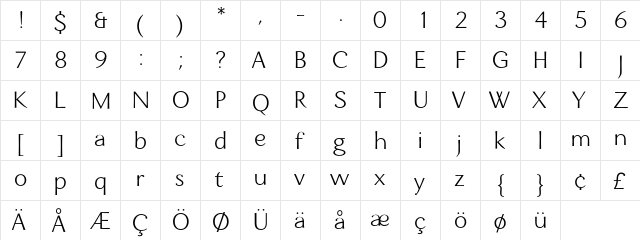
Eniza Light
| Foundry | by Jeremy Dooley |
Design Context for Eniza Typeface
Eniza is a composed and adaptable typeface that performs quietly and consistently across a wide range of design contexts. The delicate stroke weight brings airiness and refinement to layouts.